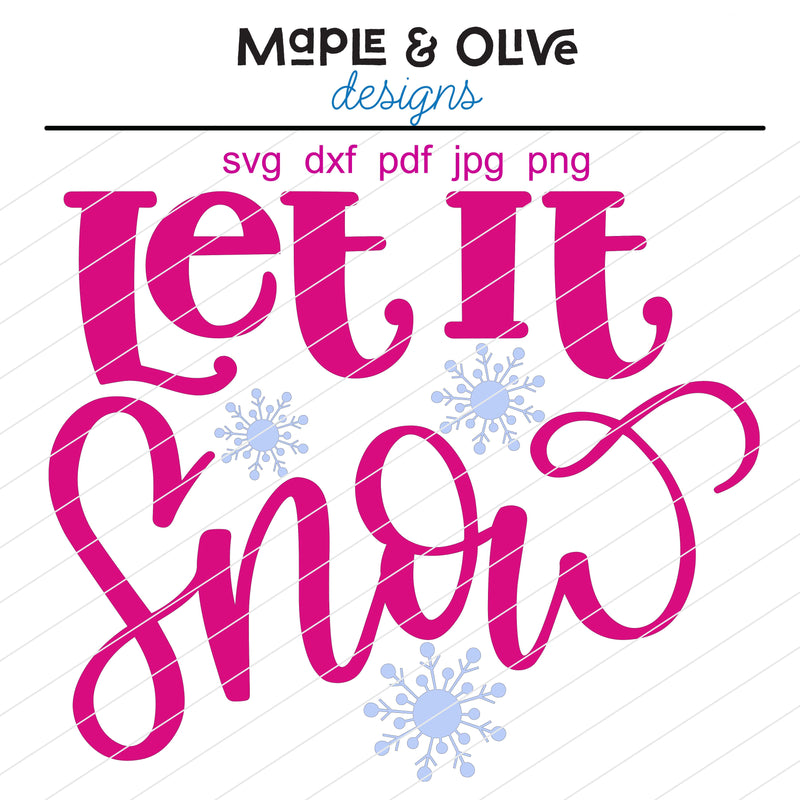
Let it Snow Hand Lettered Cut File | Designs for Cricut & Silhouette | Christmas, Winter
Let it Snow Hand Lettered Cut File
All designs and illustrations by Maple and Olive Designs and/or Cursive by Camille are carefully hand lettered/hand drawn with lots of attention to detail and layout. You are purchasing a one of a kind design :)